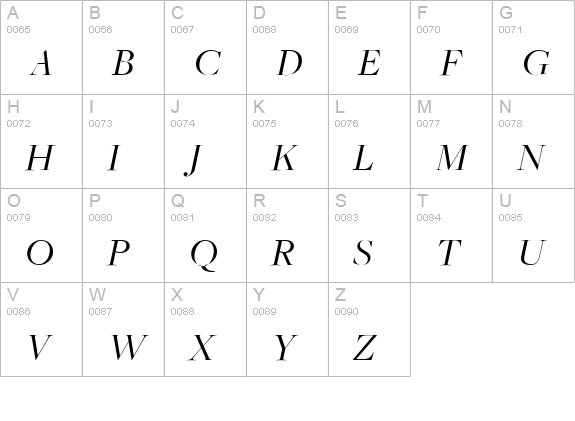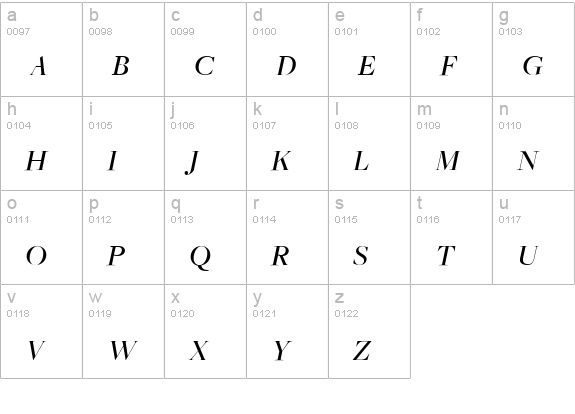
FreightBigBookItalicSC Font Details
FreightBigBookItalicSC is a versatile and modern font that exudes sophistication and elegance. Its sleek italic styling adds a touch of refinement to any design project, making it perfect for conveying a sense of class and professionalism. With its bold and eye-catching appearance, FreightBigBookItalicSC is ideal for headlines, titles, and other attention-grabbing elements. The best part? FreightBigBookItalicSC is available for free download at FontsMarket.com. This means you can easily access this high-quality font without breaking the bank, making it a valuable addition to any designer's toolkit. Don't miss out on the opportunity to enhance your projects with the timeless appeal of FreightBigBookItalicSC – download it today and take your designs to the next level.